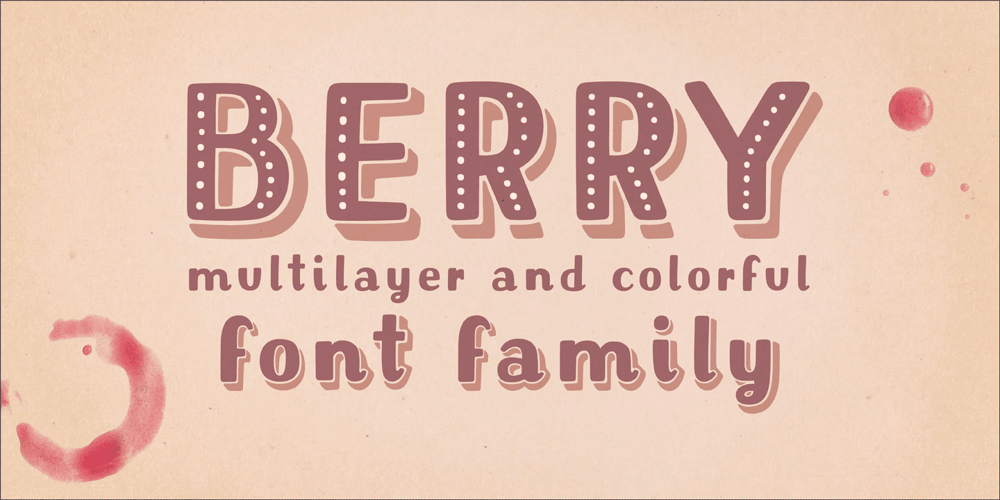
Mrs Berry Font Family was designed by Aleksandra and Daniel Mizielińscy and published by Hipopotam Studio. Mrs Berry contains 6 styles and family package options. Mrs Berry is a hand drawn typeface designed for one of our books. You can use it as a regular monochrome typeface or layer different styles to achieve colorful combinations. Mrs Berry has upper and lowercase characters and supports both Latin and Cyrillic scripts.